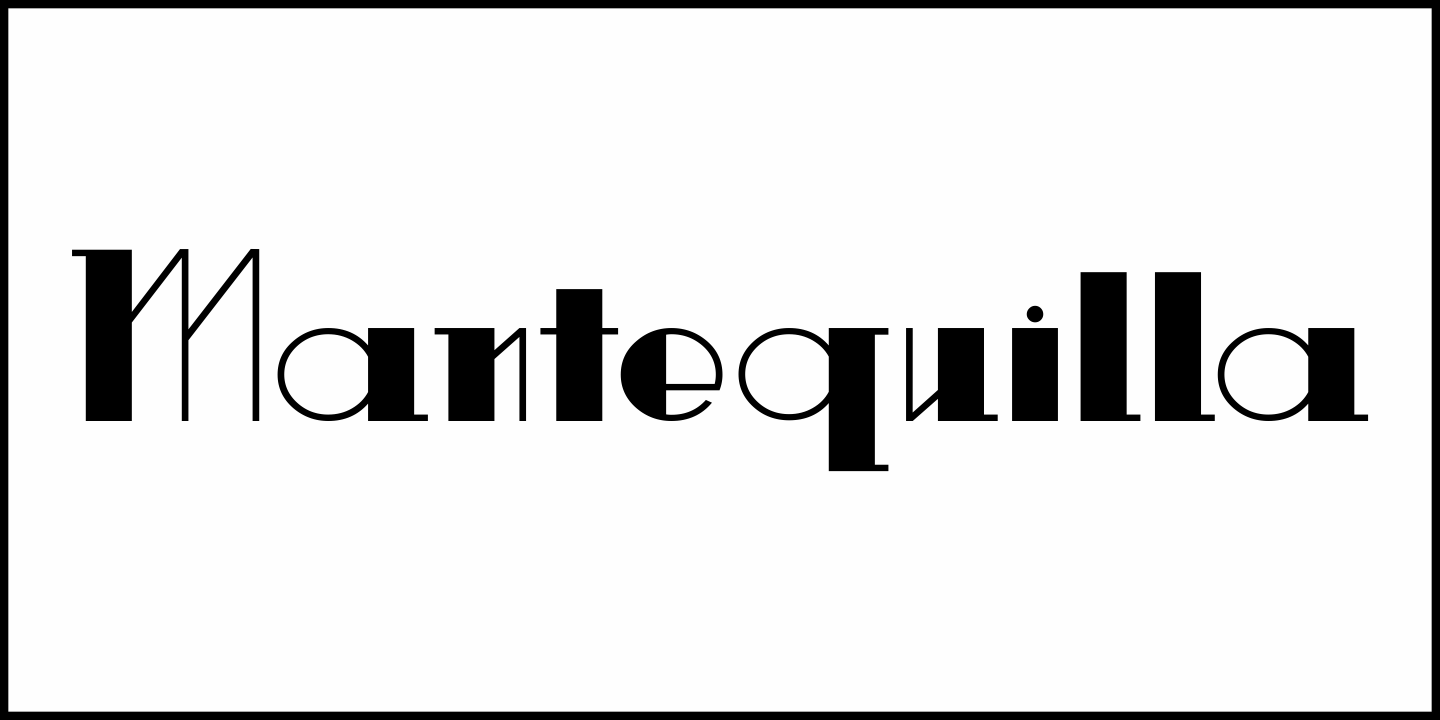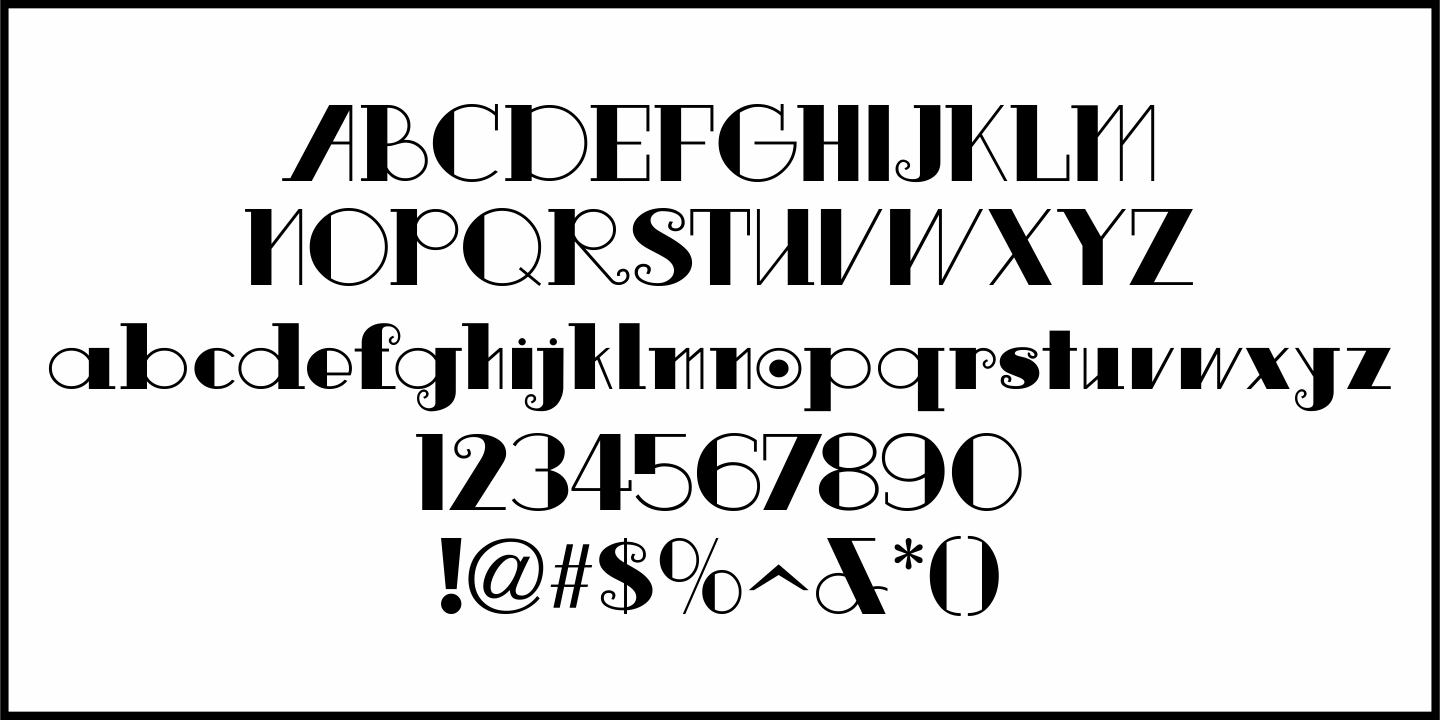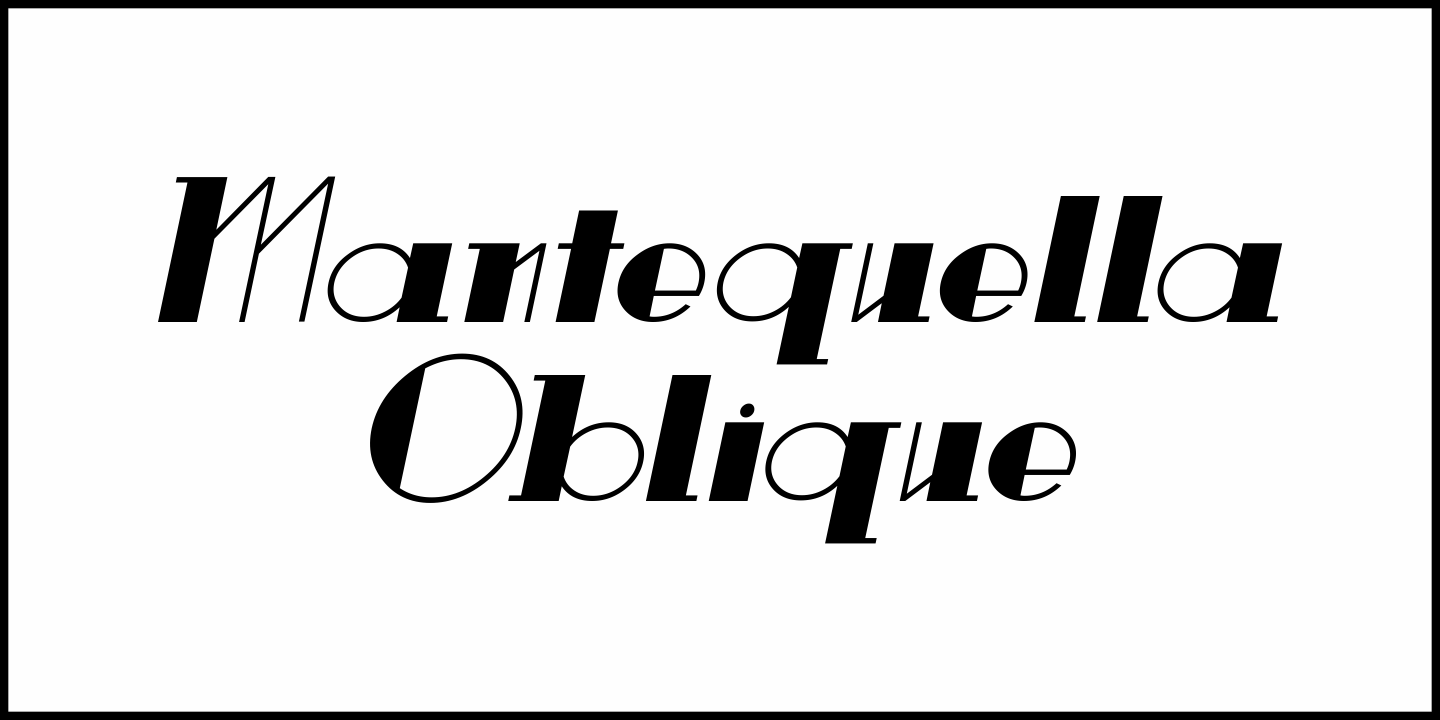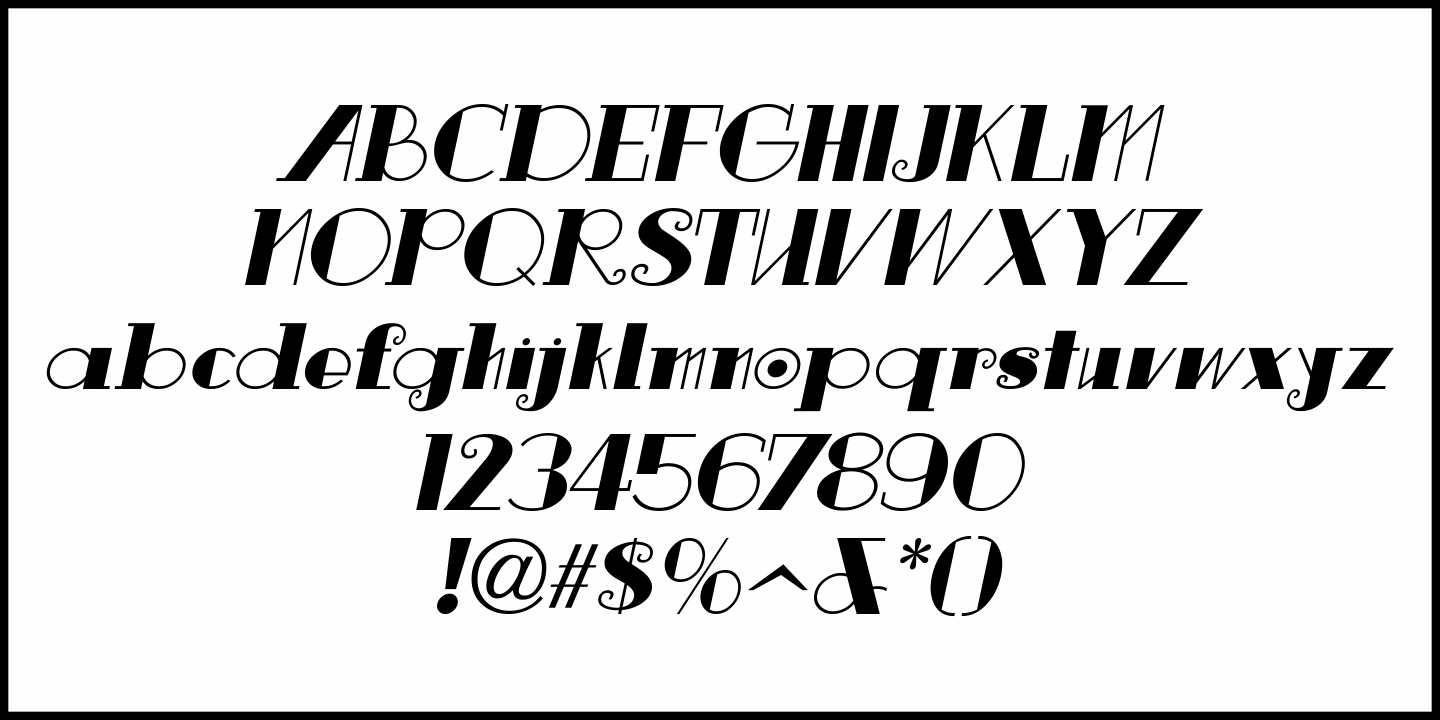
Mantequilla
Some unusual hand lettering was found on the cover of the 1924 edition of a Spanish language novel by Joaquin Belda entitled “La Hora del Abandono” ("The Time of Abandonment").
The title was created as all lower case characters in a semi-serif style reflecting the dawn of the Art Deco movement.
A new set of capital letters was created for this digital revival, along with the numbers, punctuation and other necessary glyphs.
Mantequilla JNL is available in both regular and oblique versions.
For those unfamiliar with the Spanish language, Mantequilla (pronounced mon-tay-key-yuh) means butter.